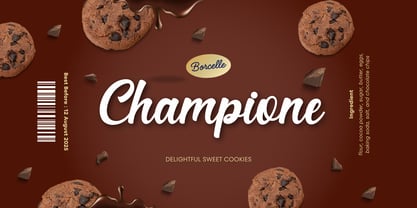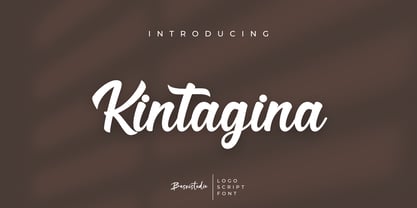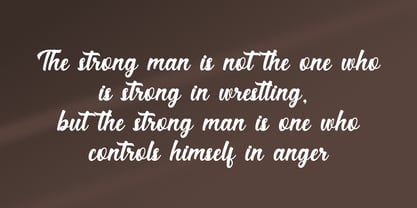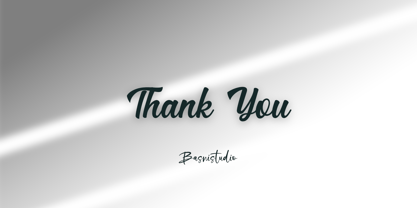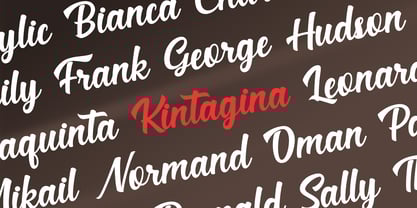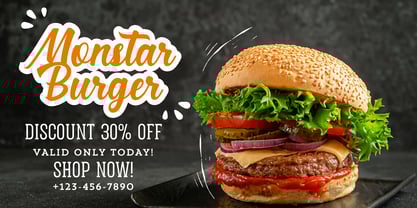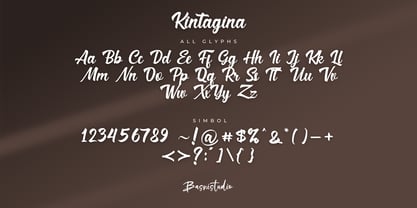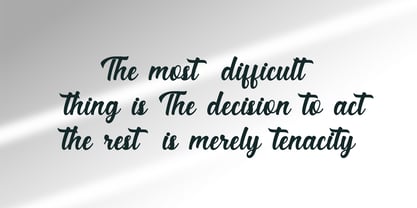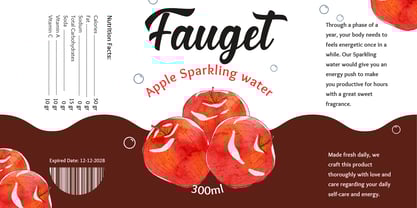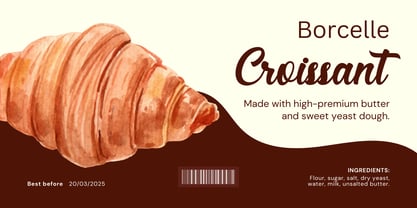
Kintagina
by Basnistudio
The Kintagina Font Family was designed by Bery Arisandi and published by Basnistudio. Kintagina contains 1 styles.
Looking to add a touch of elegance, charm, or personal flair to your designs?
Kintagina Logo Script Fontis the perfect choice!
🎨 Why Choose Kintagina Logo Script Font?
✔️ Effortless Elegance: Perfectly crafted curves for a timeless handwritten feel.
✔️ Versatile Use: Ideal for wedding invitations, branding, social media graphics, and more.
✔️ User-Friendly: Includes multilingual support, ligatures, and alternate glyphs for endless creativity.
✔️ High Quality: Designed with precision for both print and digital use.
🌟 Perfect For
Personalized greeting cards
Creative logos and branding
Inspiring quotes and social media posts
Beautiful website headers
💡 Make Every Word Stand Out! Transform ordinary text into captivating works of art with Kintagina Logo Script Font.
Designers: Bery Arisandi
Publisher: Basnistudio
Foundry: Basnistudio